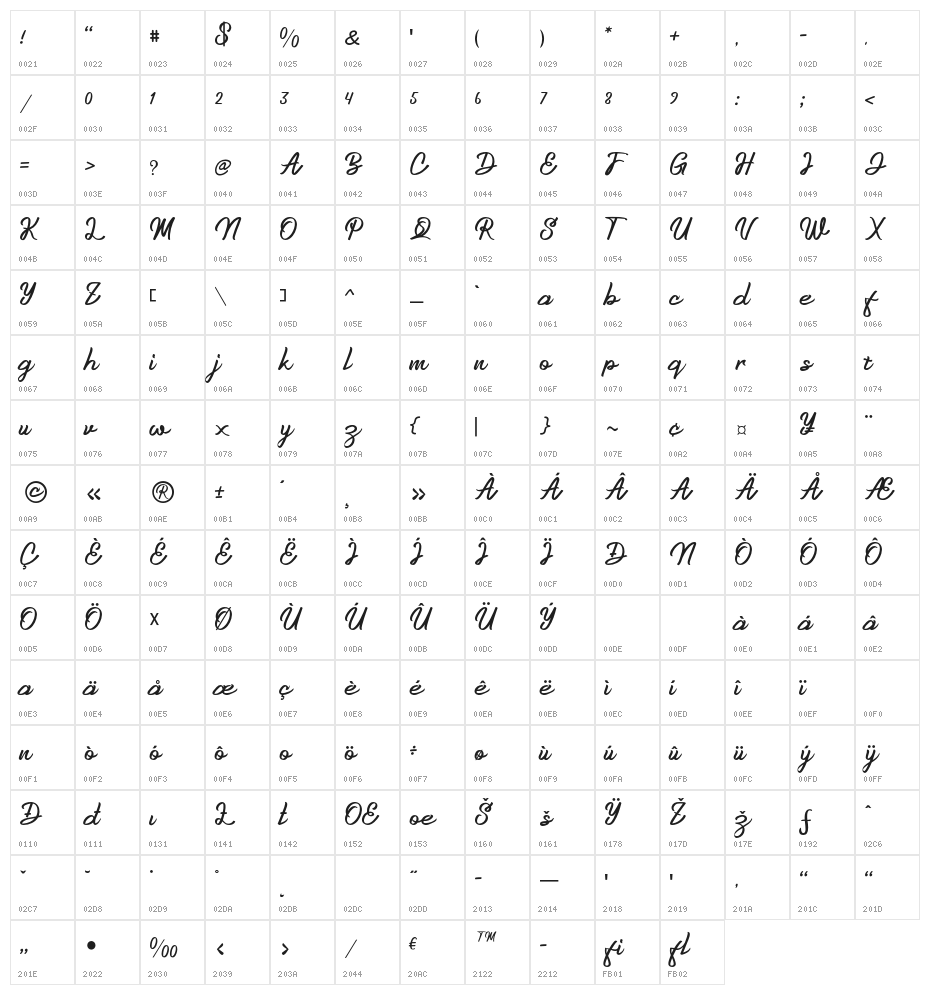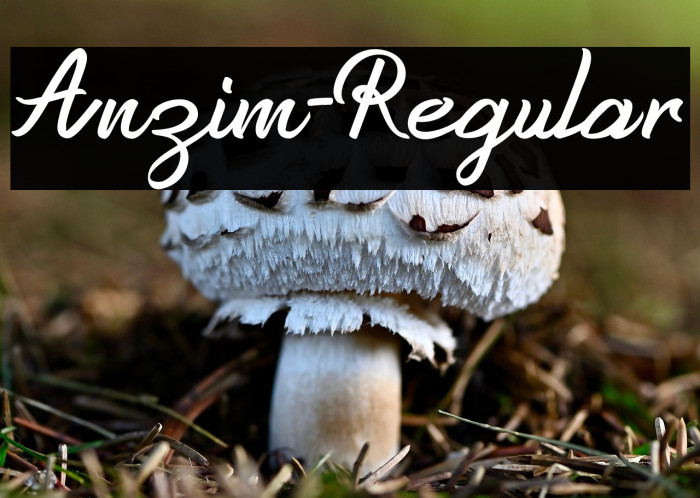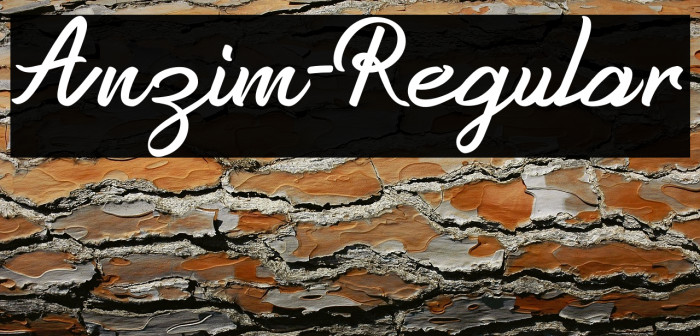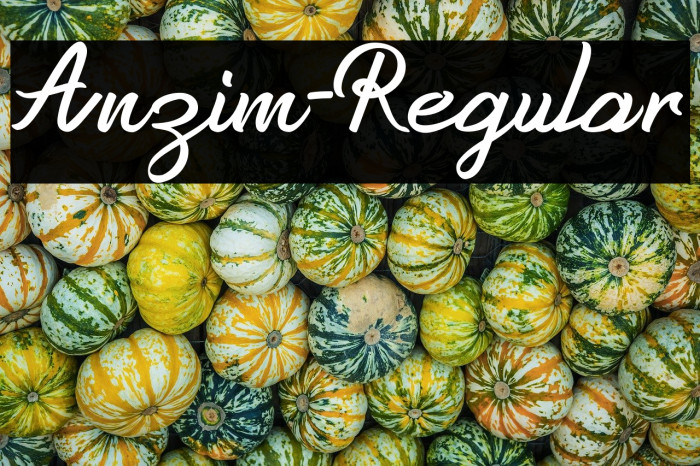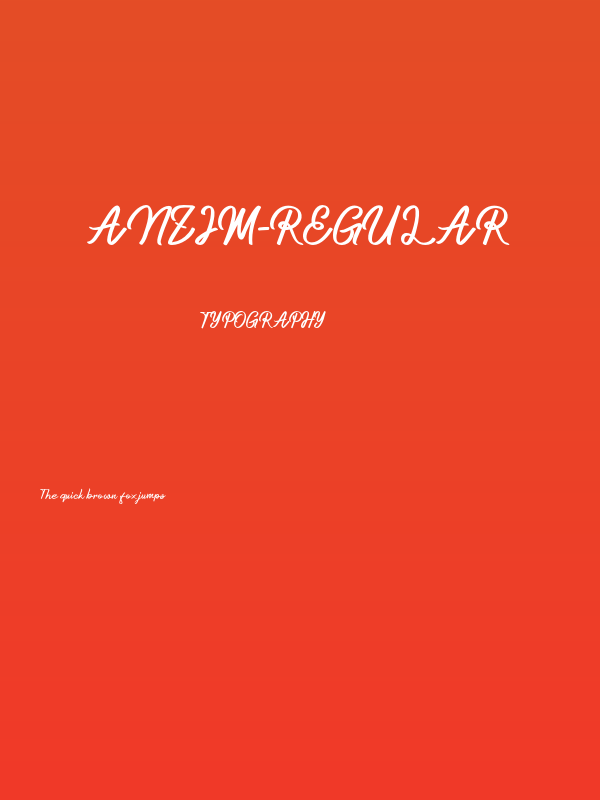
Anzim-Regular Font
Anzim-Regular Description
This font features a flowing, cursive style that exudes elegance and sophistication. The characters are interconnected, creating a seamless and fluid appearance. The uppercase letters are bold and prominent, while the lowercase letters maintain a consistent flow with slightly exaggerated loops and curves. The numerals are styled to match the cursive nature, providing a cohesive look throughout. Special characters are included, maintaining the same elegant script style. This font is perfect for projects that require a touch of class and refinement.